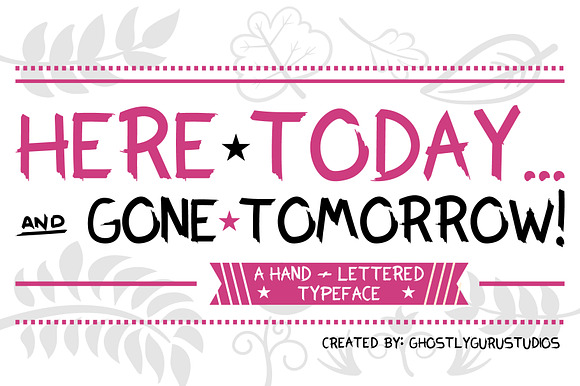
Here Today Typeface
A hand written, brush style typeface perfect for.. everything!
Symbols included - with a few variations/alternates
Here Today Typeface by bciii design fits naturally into Branding, posters, packaging, typography.